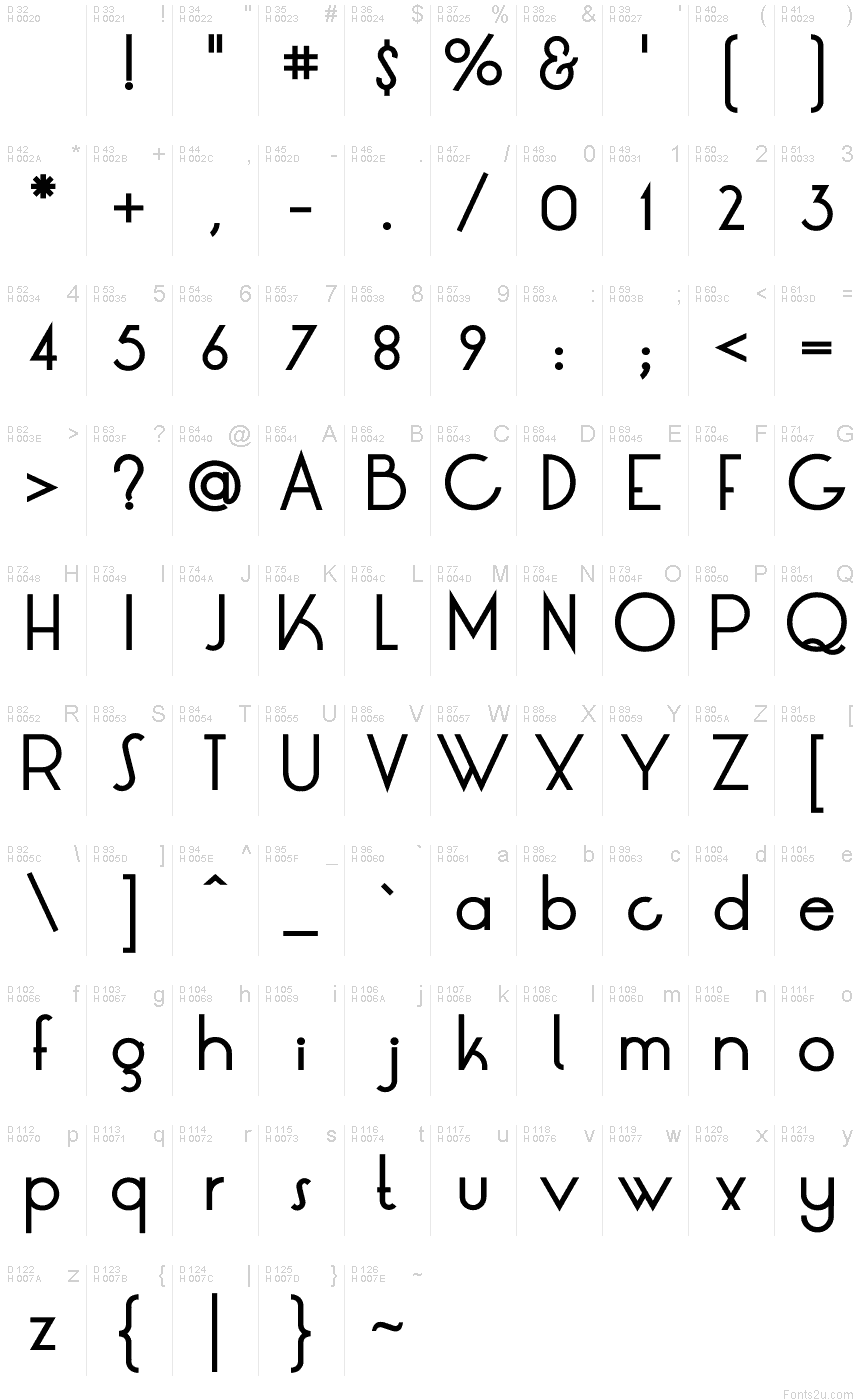
LT Oksana Medium Bold, designed by Lauren Thompson of Nymphont, is a free geometric display font with a distinctly offbeat edge. Broad circular forms meet tall, economical strokes, and the shifting line weight gives the lettering a lively hand-drawn tension despite its clean contours.
Logos are its most convincing setting, especially for fashion labels or independent music projects seeking modern geometry with a less corporate voice. The same unusual proportions suit posters and magazine covers, where the lettering can become a recognizable part of a brand or product identity rather than simply naming it.
Original geometric design by Lauren Thompson, of Nymphont first created in 2008. The "deco" midlines and non unconventional dotted letter positions as well as the almost vertical slant of the 's' give this font what has been described as a "retro" theme and add to the uniqueness of the typeface.